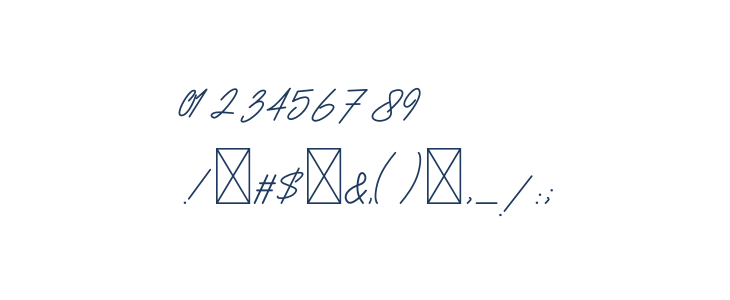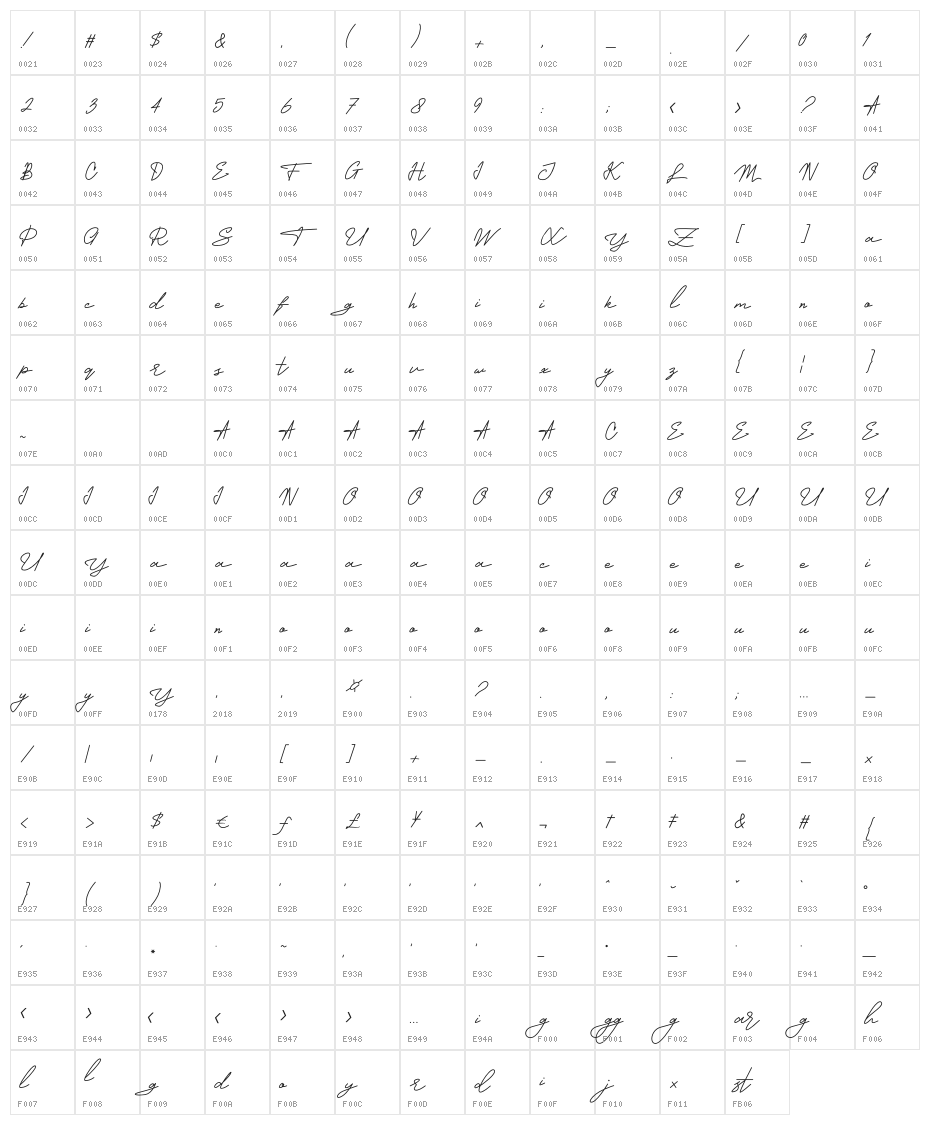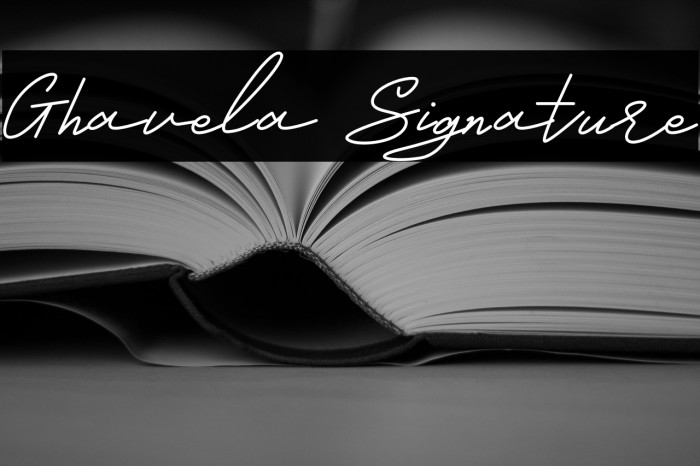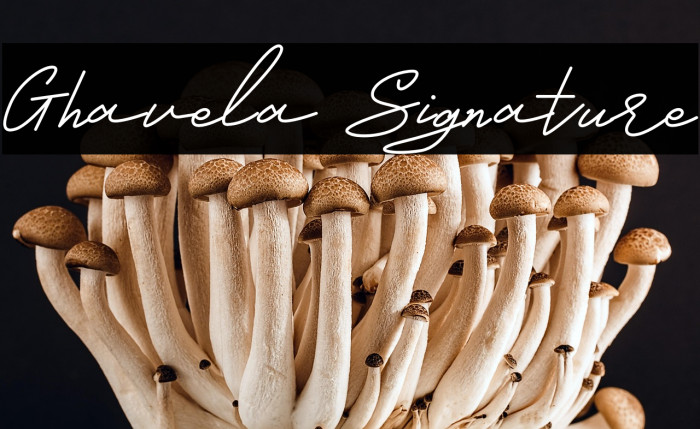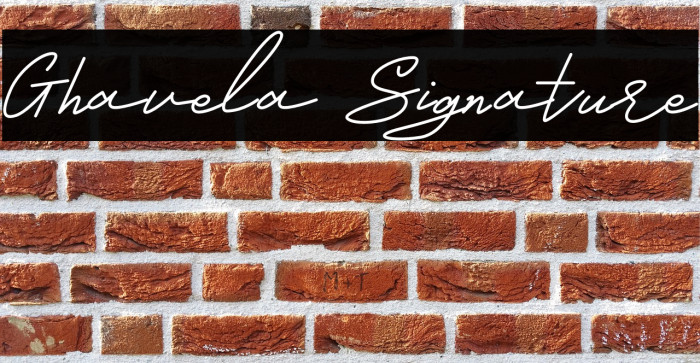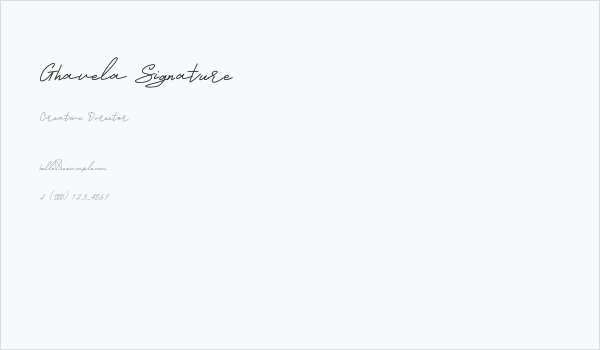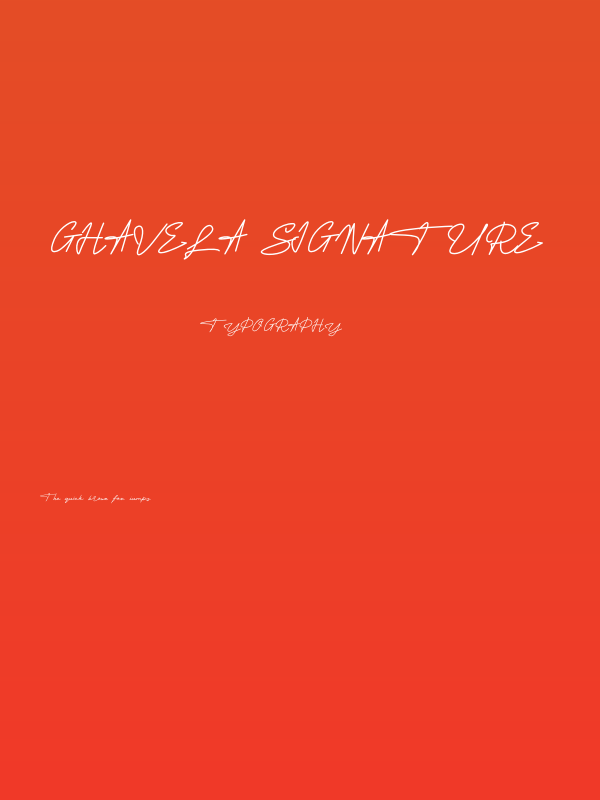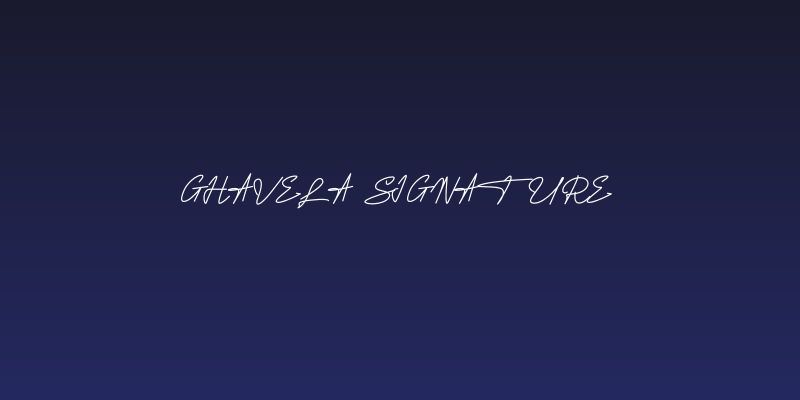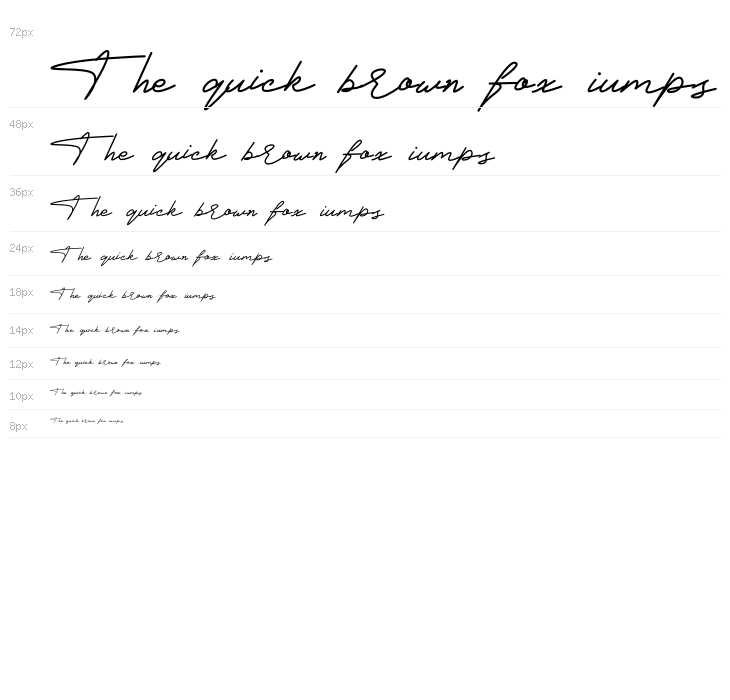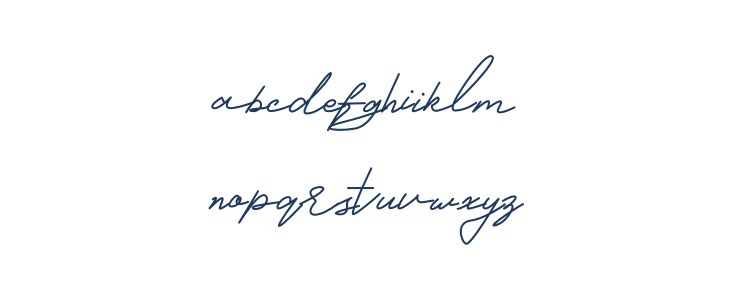
Ghavela Signature Font
Ghavela Signature Description
This elegant script font exudes a sophisticated and fluid style, characterized by its smooth, flowing lines and graceful curves. The uppercase letters are slightly larger and more ornate, while the lowercase letters maintain a consistent, connected cursive style. The numerals are clear and maintain the same fluidity, making them easily legible. The special characters complement the overall aesthetic, adding a touch of elegance. This font is perfect for projects that require a personal, handwritten touch, such as invitations, branding, and logos.
| Overall Style | Elegant, Handwritten |
| Proposed Projects | Ideal for wedding invitations, personal branding, elegant logos, and stationery design. |